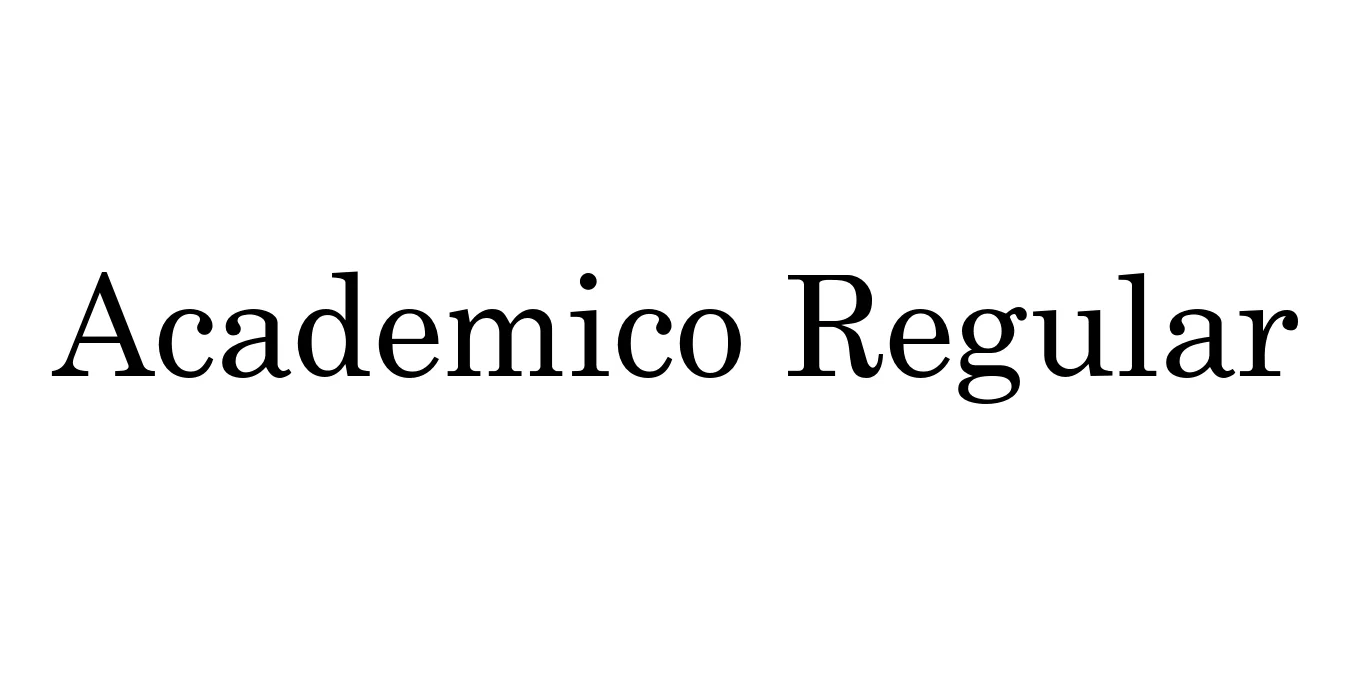
Academico Regular
Designed by Steinberg Media Technologies
| Similar Fonts | Century Schoolbook, New Century Schoolbook, Miller, Baskerville |
Academico Regular is a contemporary serif typeface specifically crafted for the Dorico music notation software. Developed by Steinberg, it was designed to provide a highly legible and elegant solution for text within musical scores, such as lyrics, dynamics, and performance directions. The font draws heavy inspiration from the classic Century Schoolbook design, inheriting its high x-height and robust vertical proportions to ensure clarity even at smaller point sizes.
The typeface is characterized by its sturdy serifs and balanced stroke weights, making it exceptionally functional for academic publishing and editorial layouts. While its primary purpose is music-related, its clear and authoritative aesthetic has made it a favorite for textbooks and technical documents. Academico bridges the gap between 19th-century traditionalism and modern digital rendering requirements, offering a timeless look for both print and screen.
Academico Regular Best Uses
The primary use case for lyrics, headers, and annotations in sheet music.
High legibility makes it perfect for dense educational materials.
Provides a formal and clear structure for complex information.
Excellent for journals, magazines, and newspapers requiring a traditional feel.